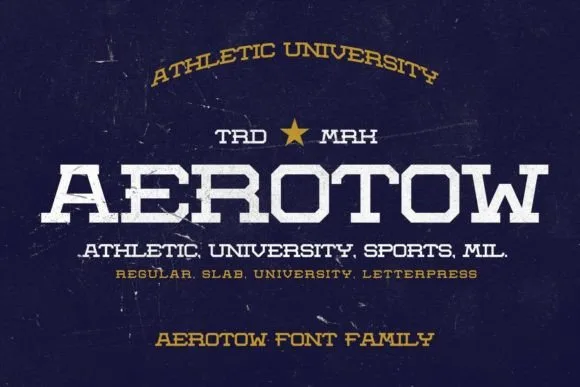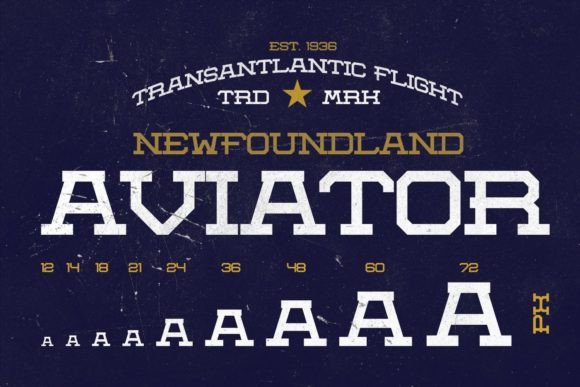
AEROTOW FONT SPECIMEN
Aerotow Font is a handcrafted vintage, letterpress, and slab serif font.
Inspired by university sports, retro posters, magazines, postcards, and ads from the 70’s to the ’90s, the font stays in memory once you see it and is ideal for display text, print, user interfaces, mobile devices, web design, and posters, with a set of optimal characters for your design in any layout.